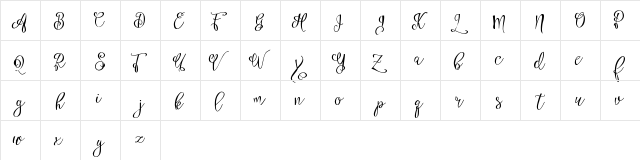
Eszty Script Demo
Design Context for Eszty Typeface
Eszty flows with the natural rhythm of handwritten lettering, making it ideal for designs that call for warmth and personal expression.
Font Pairing: Combine Eszty with a simple geometric sans for maximum contrast — the tension between flowing curves and clean structure is a classic typographic pairing.
Pro Tip: Pair Eszty with a clean sans-serif for supporting text. The contrast between fluid script and geometric structure creates an elegant typographic hierarchy.